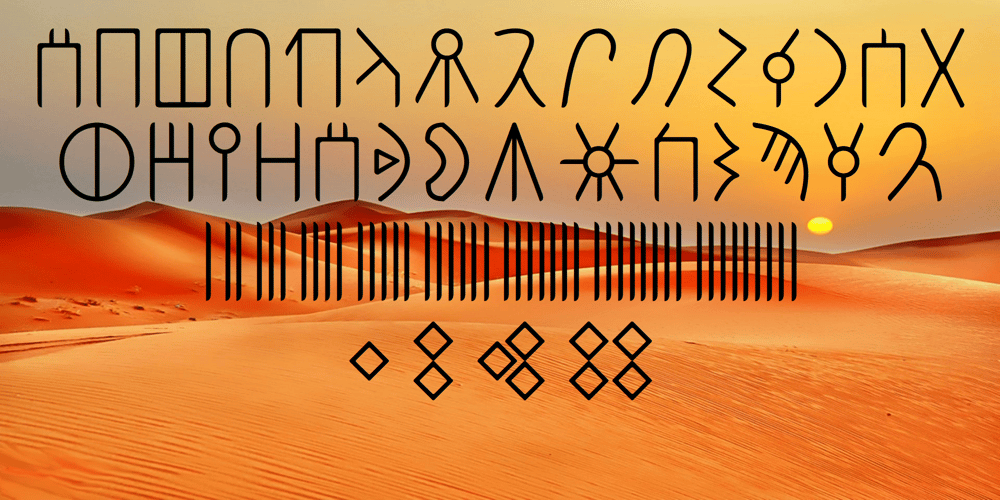
Ongunkan Northern Arabian Scrip Font Family was designed by Osman Nuri ALKAN and published by Runic World Tamgacı. Ongunkan Northern Arabian Scrip contains 1 styles and family package options. The Ancient North Arabian scriptsAncient North Arabian is the name given to a group of scripts belonging to the South Semitic script family, which also includes the Ancient South Arabian alphabets (musnad and zabūr) and the vocalized alphabets used in Ethiopia for Geʿez, Amharic, etc.The Ancient North Arabian scripts were used both in the oases (Dadanitic, Dumaitic, Taymanitic,) and by the nomads (Hismaic, Safaitic, Thamudic B, C, D, and possibly Southern Thamudic). There are tens of thousands of inscriptions and graffiti in these scripts which were used in the period roughly between the sixth century BC and the fourth century AD. See the descriptions of the individual scripts below